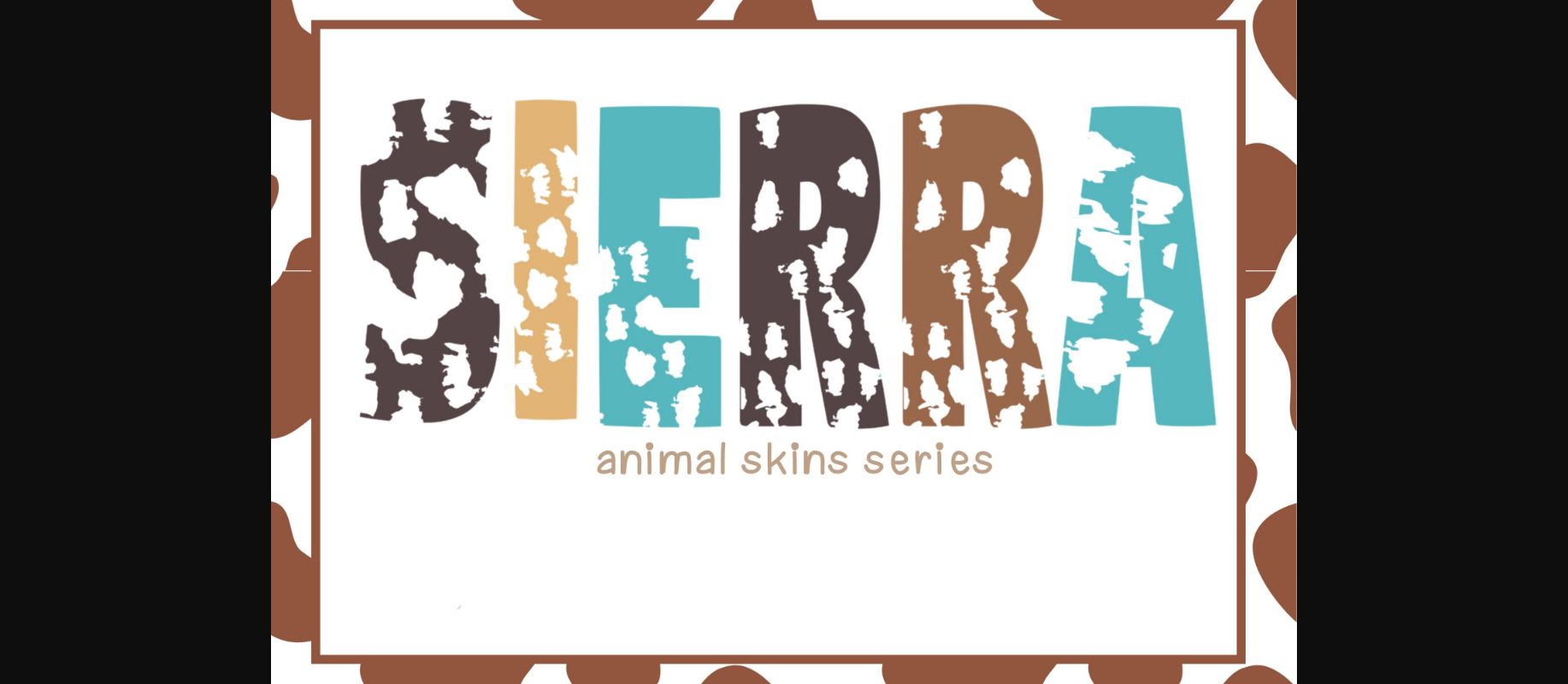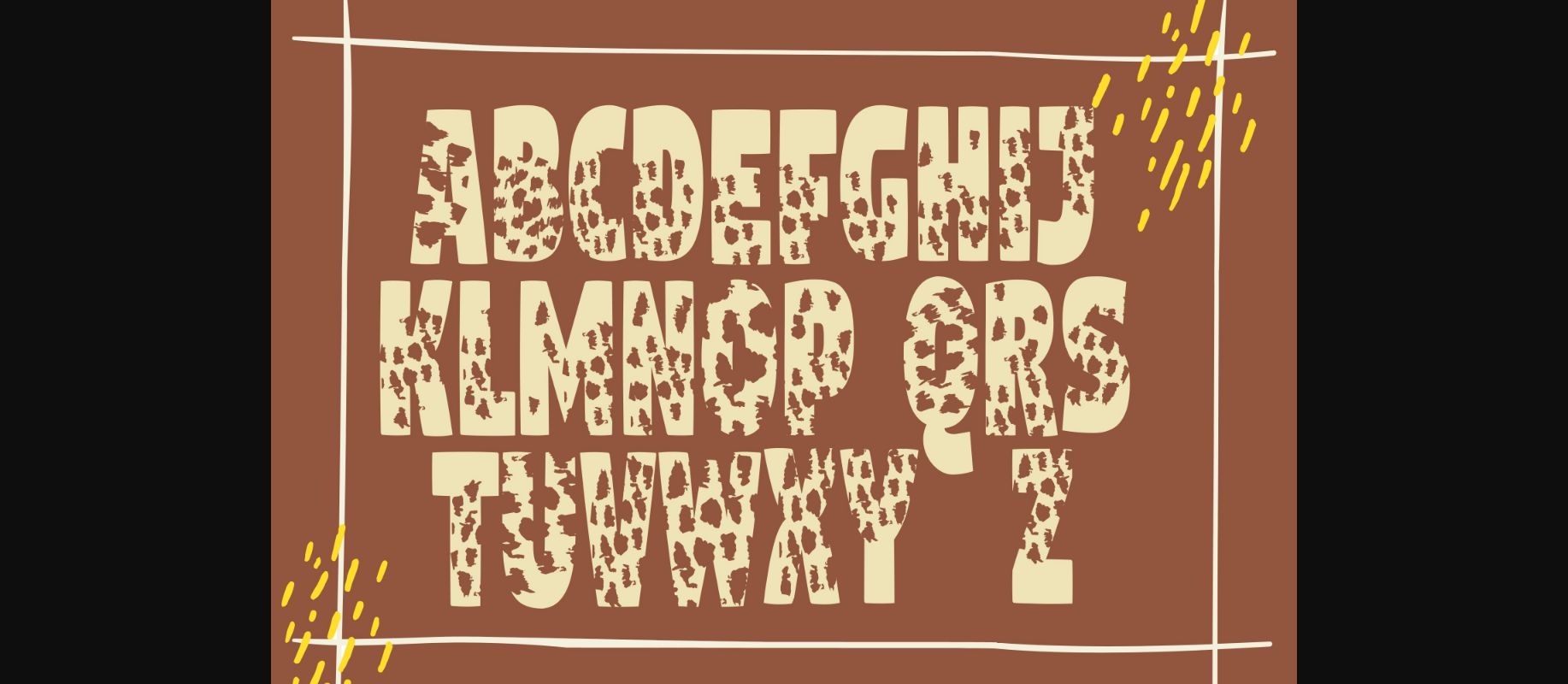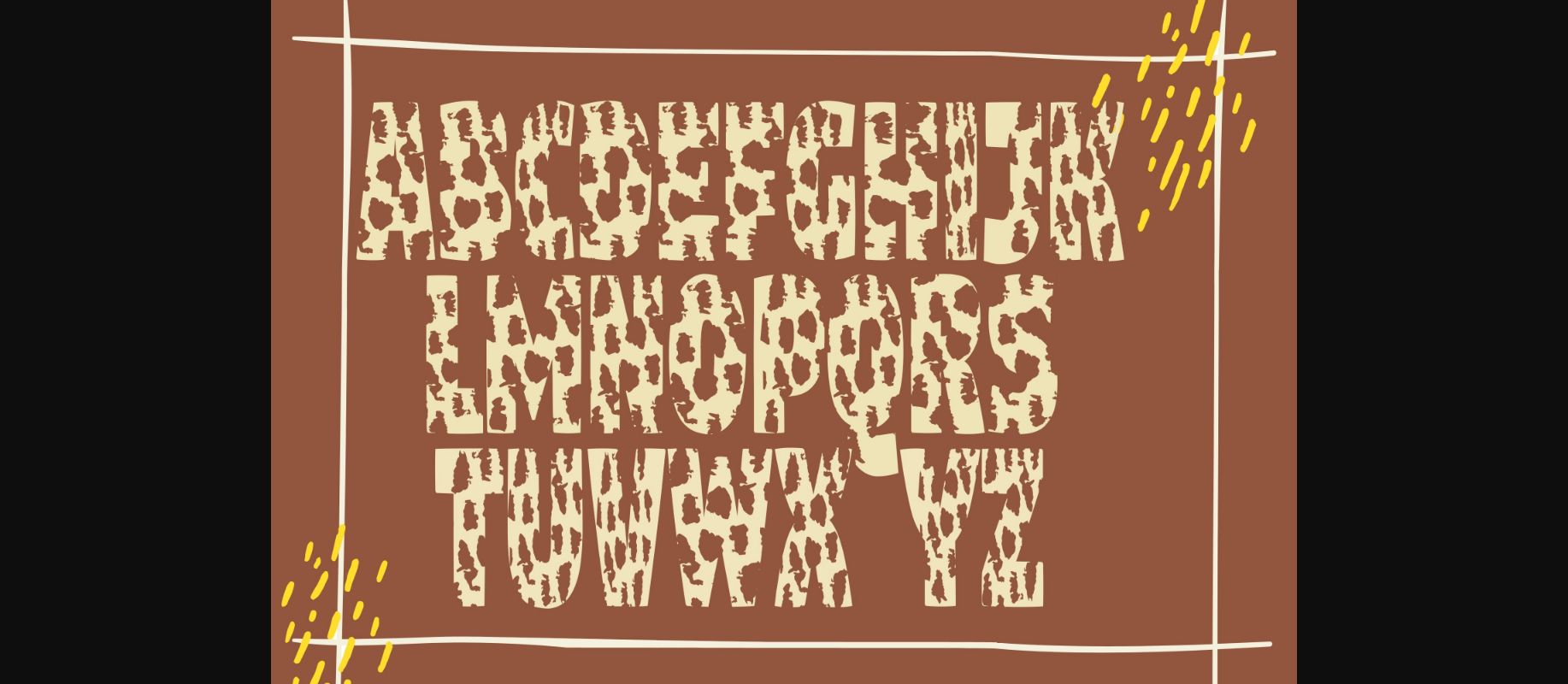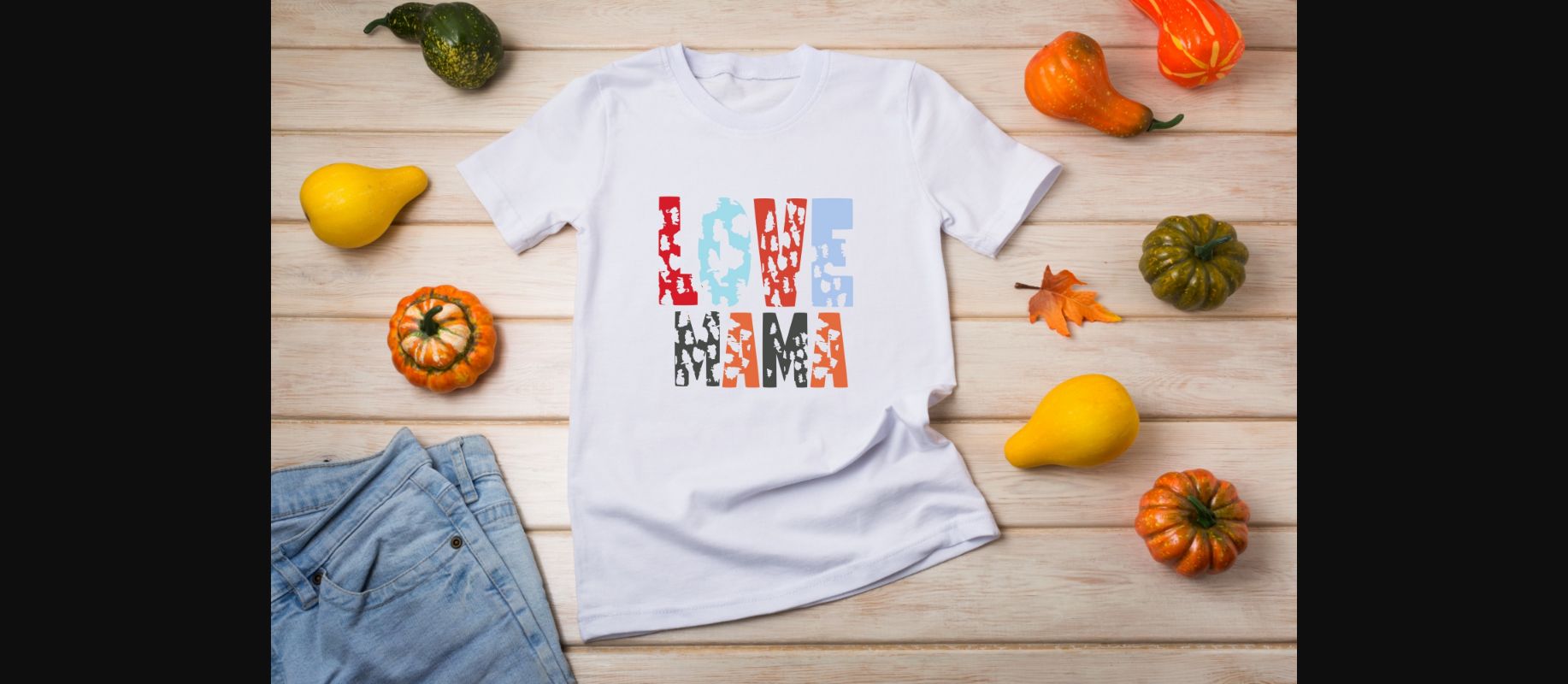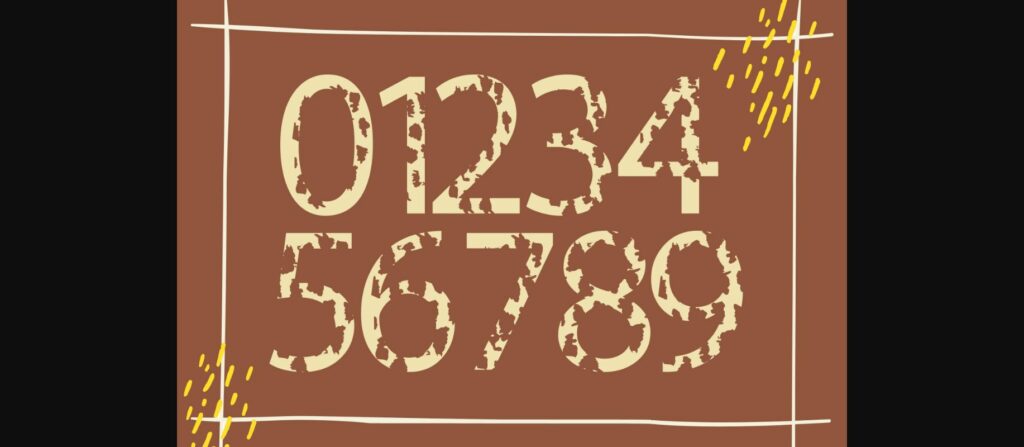
About Sierra Font
Sierra is fresh and modern decorative font.
Itβs great for headlines and other places where you want to create a big impression with an African animal theme.